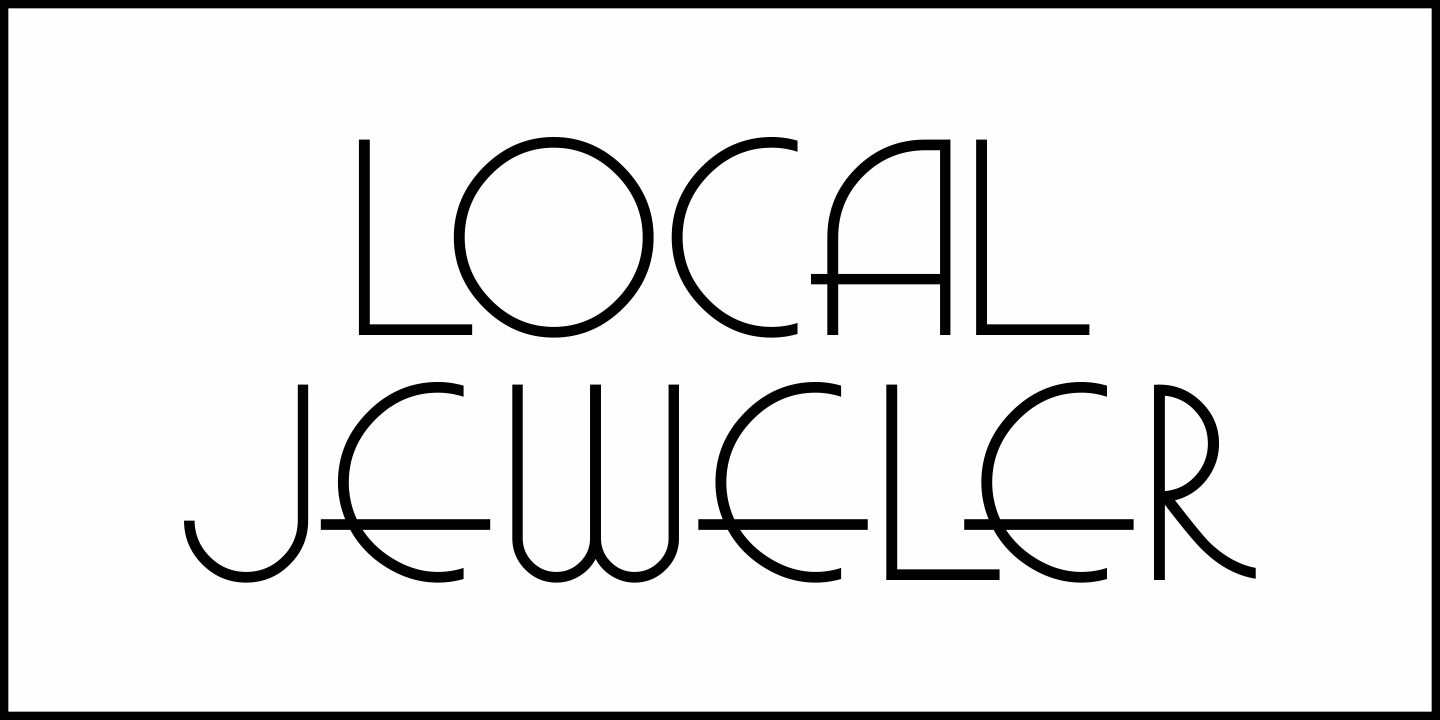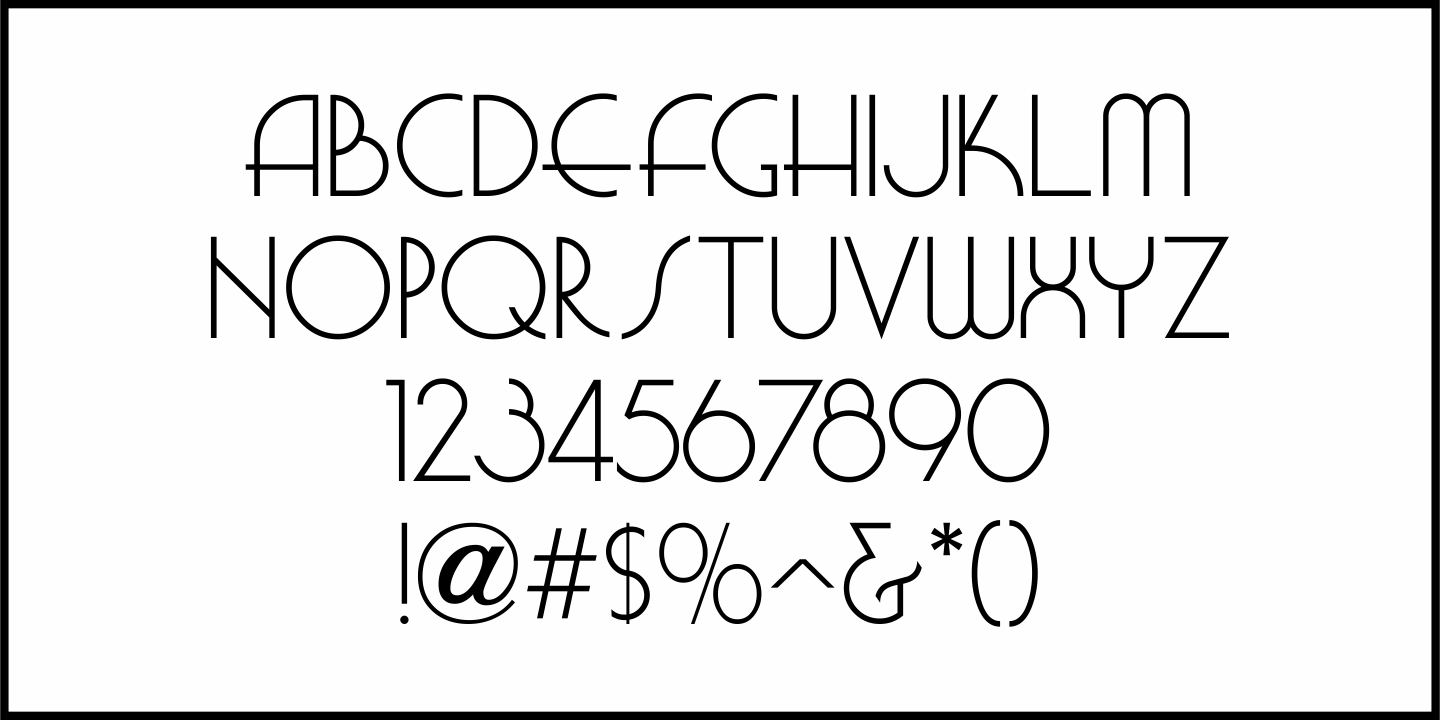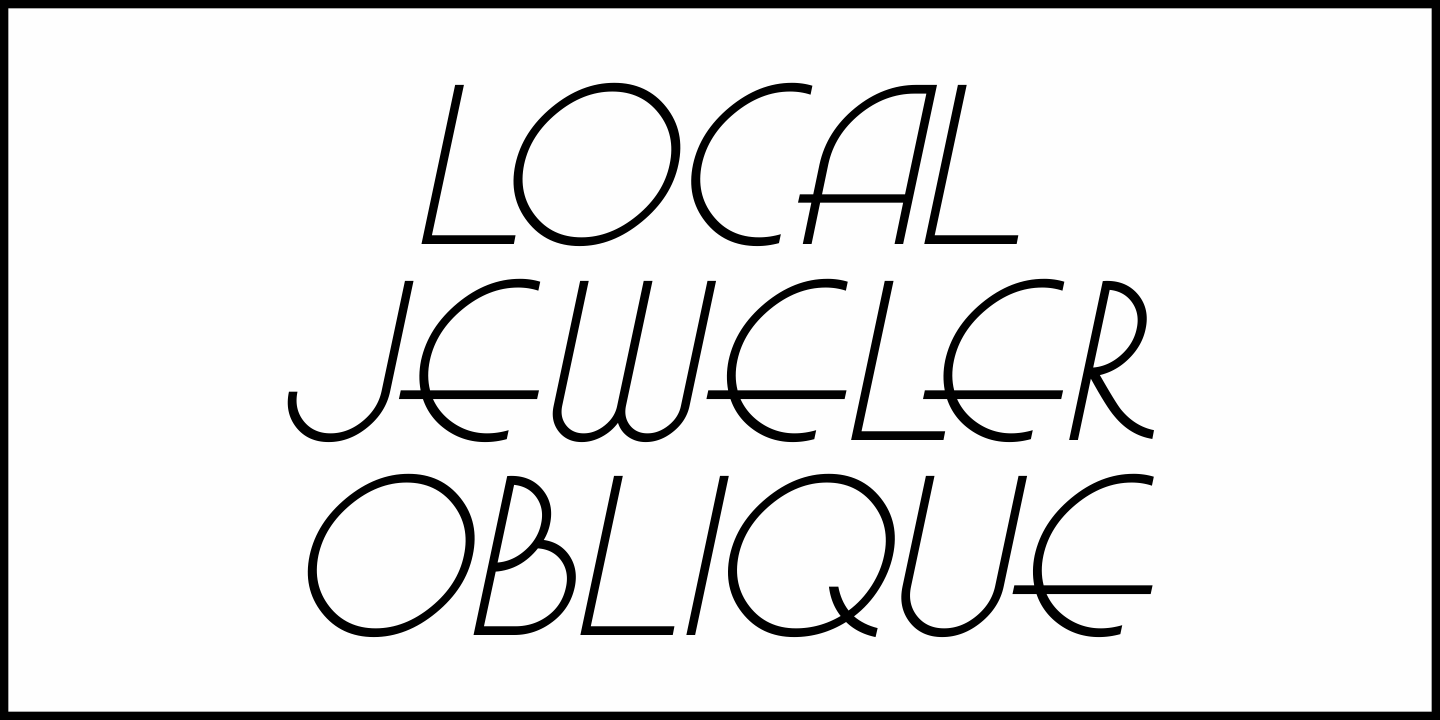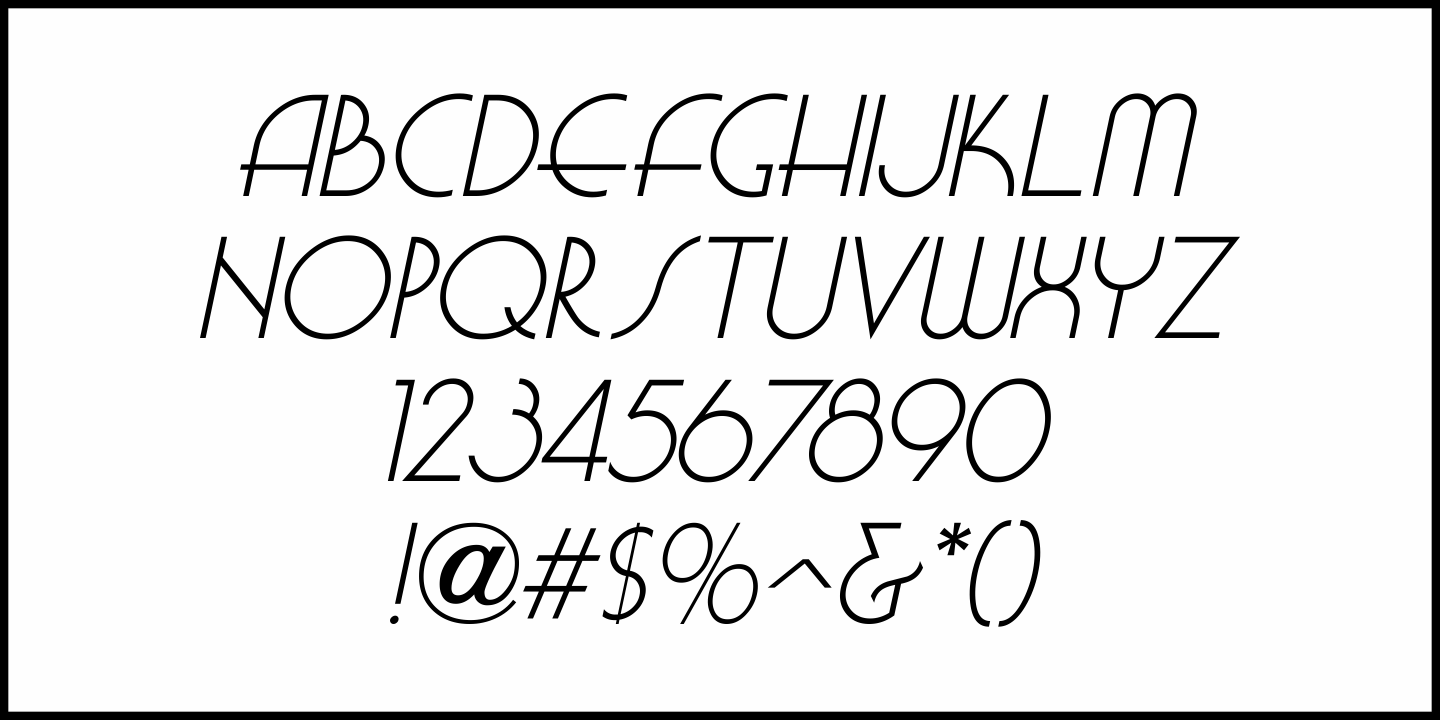
Local Jeweler
Local Jeweler JNL was inspired by an online image of a vintage 1940s-era store sign. This type design features a thin Art Deco sans serif in both regular and oblique versions.
Local Jeweler JNL Regular by Jeff Levine Fonts